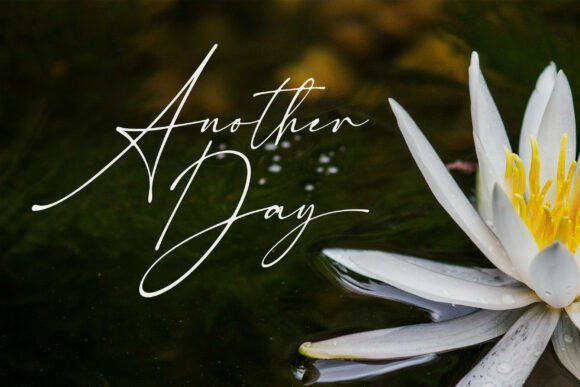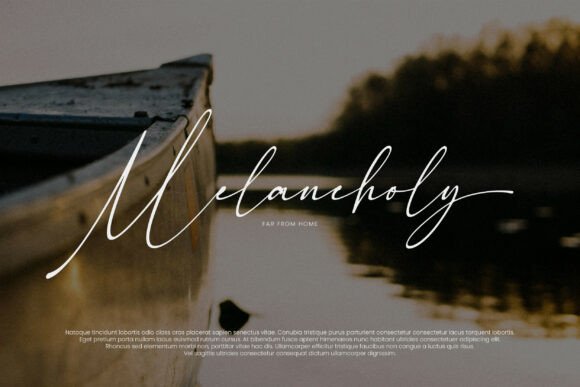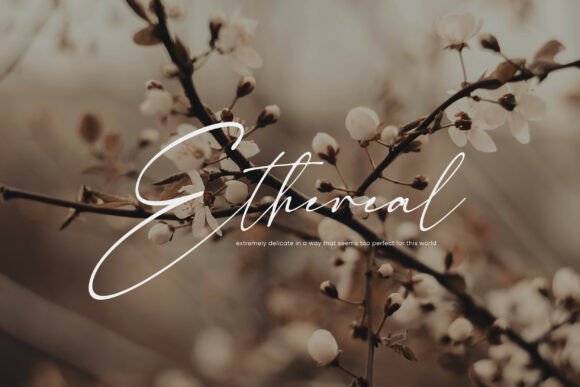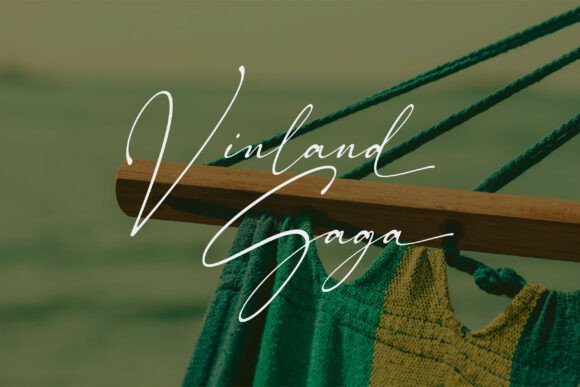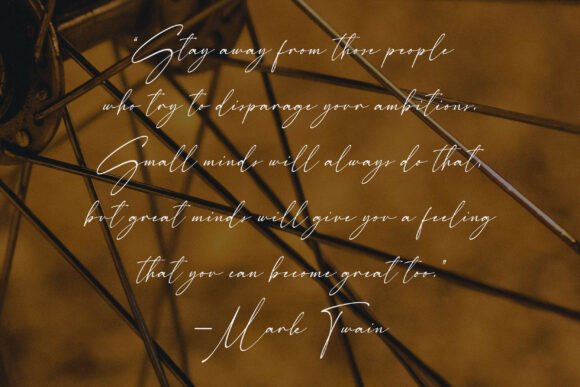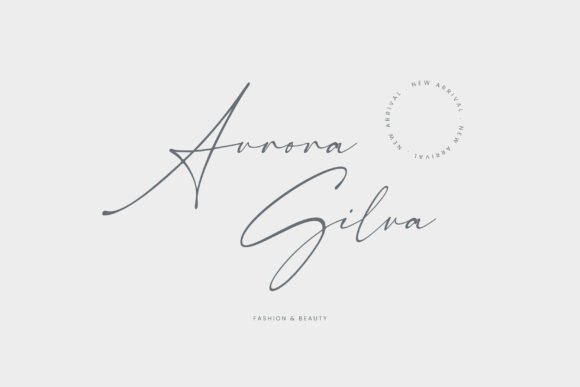
Finnest Font: Elevate Your Designs with Elegant Handwritten Script
In the world of typography, few fonts manage to capture the essence of modern calligraphy while exuding elegance and personal charm. Finnest Font is one such beautifully crafted handwritten script font that has been making waves in the design community. With its fluid strokes, gentle curves, and natural flow, Finnest brings a touch of authenticity to any project, making it an ideal choice for designers and crafters looking to add a refined and expressive touch to their work.
The Characteristics of Finnest Font
Finnest Font is distinguished by its unique characteristics that set it apart from other script fonts. Its fluid strokes and gentle curves give it a natural flow that is reminiscent of handwritten calligraphy. The font’s design is inspired by the art of modern calligraphy, with a focus on elegance, sophistication, and personal charm. Whether you’re working on a wedding invitation, a signature logo, or a social media graphic, Finnest Font is sure to bring a stylish handwritten look to your project.
Ideal Uses for Finnest Font
Finnest Font is incredibly versatile and can be used in a variety of design projects. Some of the ideal uses for this font include:
- Wedding Invitations: Add a touch of romance and elegance to your wedding invitations with Finnest Font. Its fluid strokes and gentle curves make it perfect for creating beautiful and sophisticated wedding stationery.
- Signature Logos: Create a lasting impression with a signature logo designed using Finnest Font. Its unique and elegant design makes it ideal for businesses and brands looking to establish a strong visual identity.
- Social Media Graphics: Elevate your social media graphics with Finnest Font. Its stylish and modern design makes it perfect for creating engaging and eye-catching graphics that are sure to grab the attention of your audience.
- Branding Materials: Use Finnest Font to create a cohesive and sophisticated brand identity. Its elegant design makes it perfect for creating business cards, brochures, and other branding materials.
Why Choose Finnest Font?
There are many reasons why designers and crafters choose Finnest Font for their projects. Some of the benefits of using this font include:
- Elegance and Sophistication: Finnest Font exudes elegance and sophistication, making it perfect for projects that require a touch of refinement and luxury.
- Versatility: Finnest Font is incredibly versatile and can be used in a variety of design projects, from wedding invitations to branding materials.
- Modern and Timeless: Finnest Font has a modern design that is both stylish and timeless. Its unique characteristics make it a great choice for designers and crafters looking to create something truly special.
- Easy to Read: Despite its elegant design, Finnest Font is easy to read and understand, making it perfect for projects that require a clear and concise message.
Tips for Using Finnest Font
To get the most out of Finnest Font, here are some tips to keep in mind:
- Use it Sparingly: While Finnest Font is elegant and sophisticated, it can be overwhelming if used excessively. Use it sparingly to create a lasting impression.
- Pair it with Other Fonts: Finnest Font pairs well with other fonts, especially sans-serif fonts. Experiment with different font combinations to find the perfect pairing for your project.
- Adjust the Size and Color: Adjust the size and color of Finnest Font to create visual interest and hierarchy in your design.
| Author | Twistystd |
Finnest Font is a beautifully crafted handwritten script font that exudes elegance and personal charm. Its fluid strokes, gentle curves, and natural flow make it perfect for a variety of design projects, from wedding invitations to branding materials. With its versatility, modern design, and timeless appeal, Finnest Font is a great choice for designers and crafters looking to add a refined and expressive touch to their work. Whether you’re going for romantic, classy, or creative, Finnest Font is sure to bring a stylish handwritten look to any project.